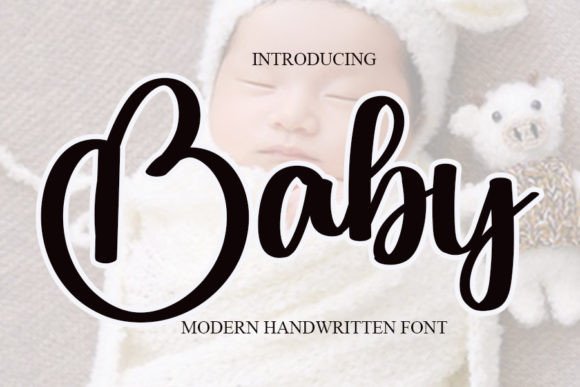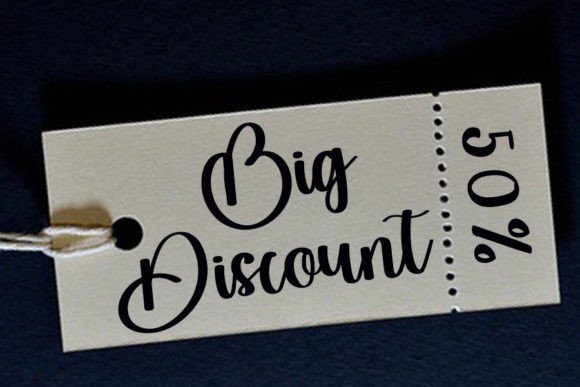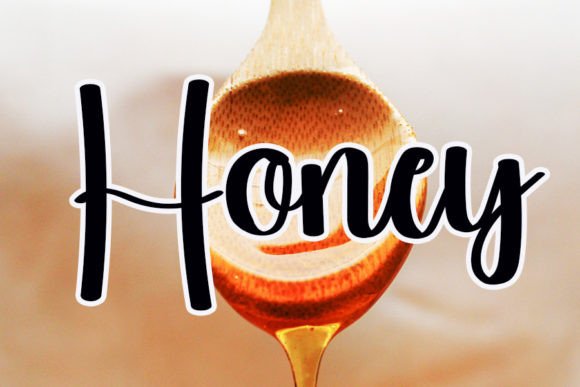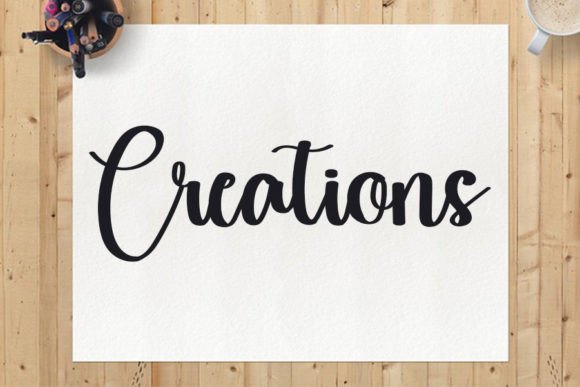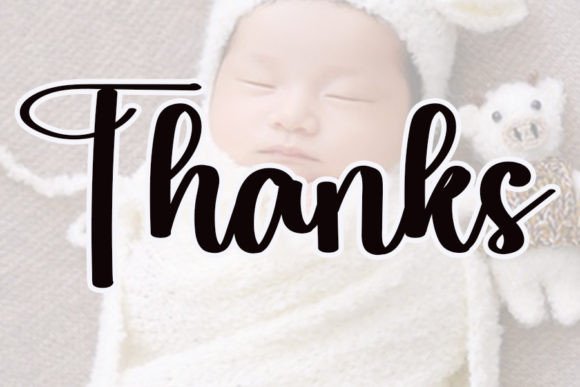
Baby Font
About Baby Font
Baby is a cool and contemporary handwritten font, thoughtfully inspired by classic calligraphy. With its spotless form and sleek curves, this font brings a refined yet personal touch to any creative project. Each character has been carefully balanced to maintain harmony across your layout, making it a perfect typeface for designers seeking a handwritten style that is neither too bold nor too delicate.
Best Uses for Baby Font
The Baby font download is especially loved for its natural curves and contemporary look that adapts well to both print and screen.
• Style: Handwritten Script
• Design Qualities: Balanced, smooth strokes with modern flair
Designers searching for a flexible and charming handwritten font will find Baby font an excellent choice. It delivers clean calligraphy without losing the inviting feel of hand lettering. Whether you’re crafting marketing visuals or personalized content, this font stands out for its elegance, legibility, and modern appeal.